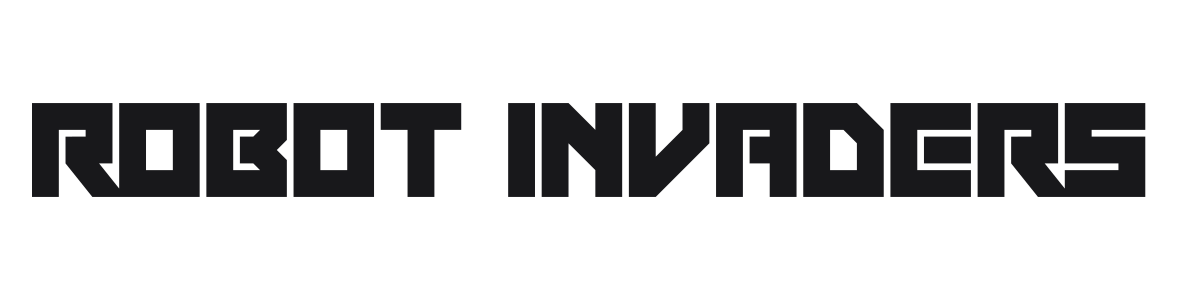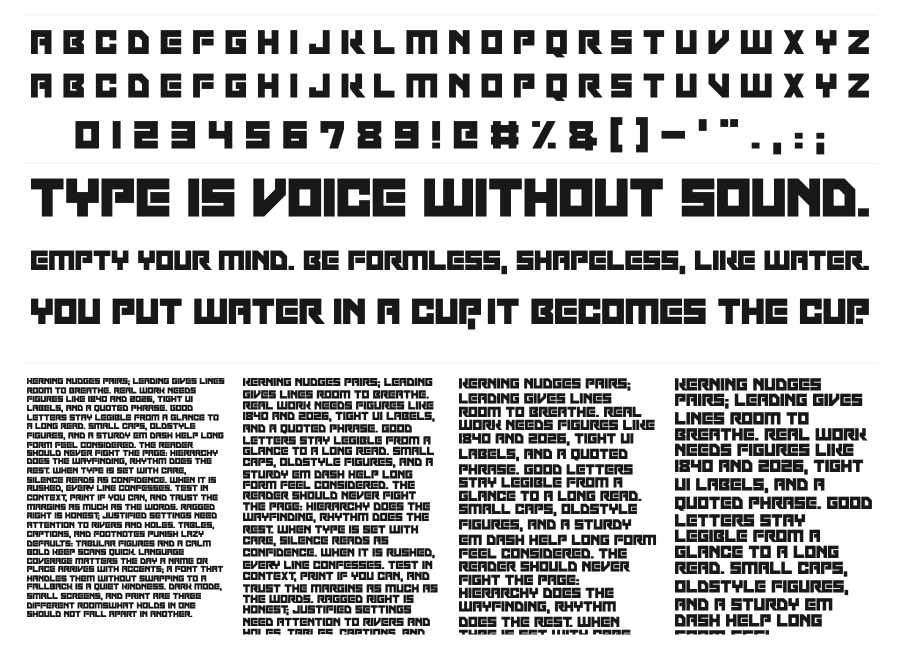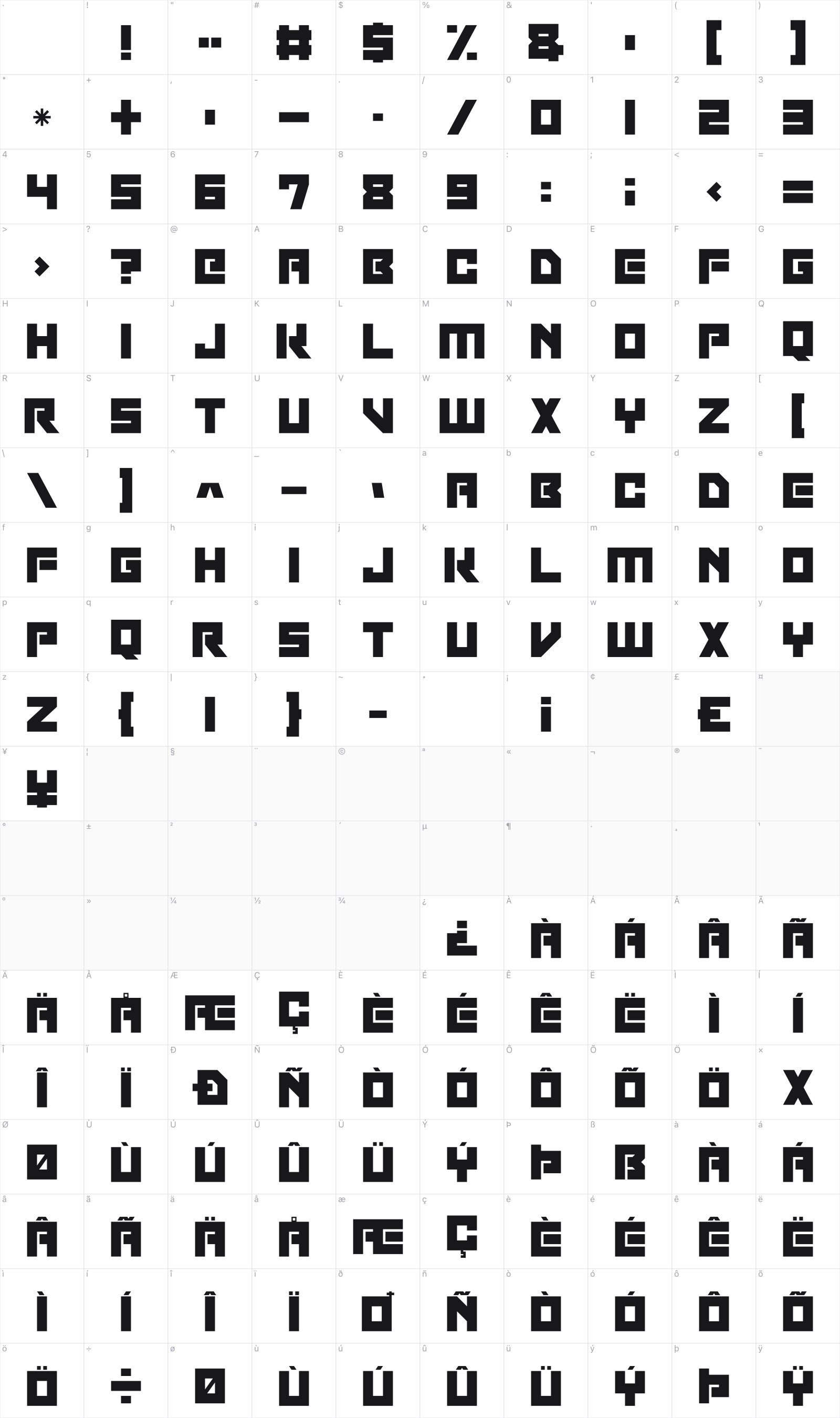
Robot Invaders
Robot Invaders is a heavy square geometric sans built from chunky rectangular modules with sharp angled cuts that channel 1980s arcade game aesthetics. Every character feels machined rather than drawn, referencing pixel grids and circuit-board logic without literally being a pixel font. It hits hard at large sizes for gaming titles, sci-fi branding, and anything that needs a retro-futuristic edge.